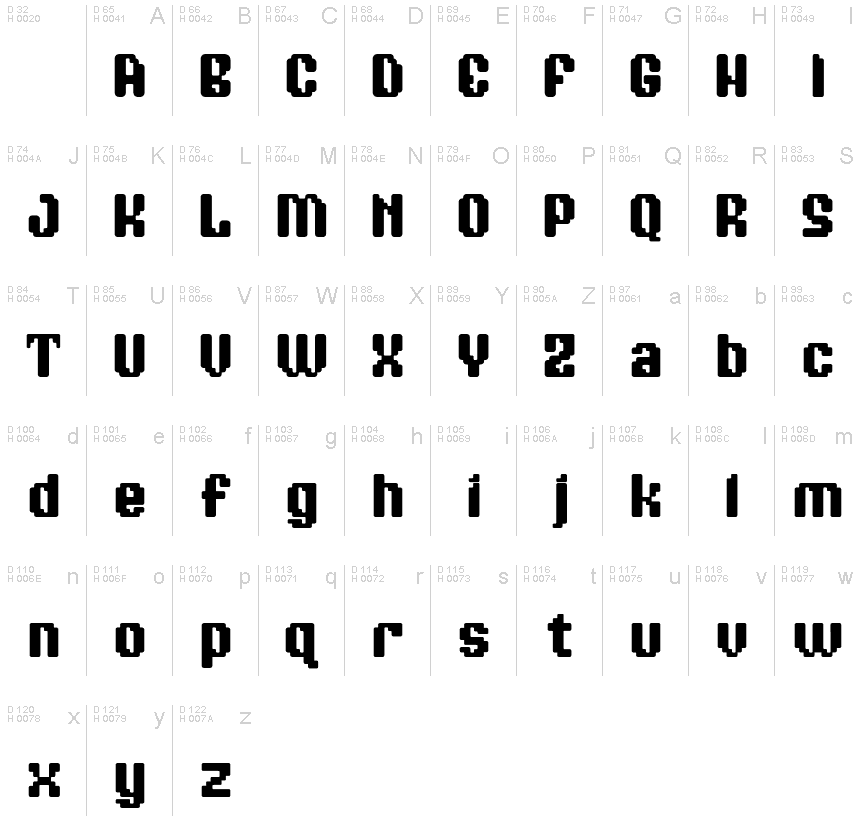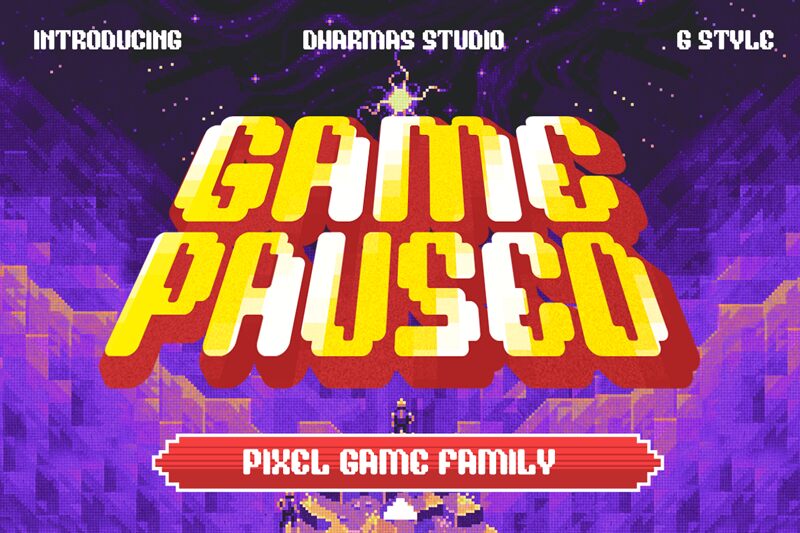
GamePausedDEMO-Regular
Game Paused, designed by Dharmas Studio, is a display font that captures the dynamic essence of digital culture with its extra-bold weight and distinctive style. Its robust and impactful design resonates with the high-energy aesthetic of video gaming and electronic media, making it an ideal choice for projects that demand attention.
The font's digital style echoes modernity and innovation, while its extra-bold character lends itself to strong visual statements. Game Paused offers a versatile palette for designers looking to infuse their creative works with a sense of excitement and contemporary flair.
Whether used in game interfaces, tech event promotions, or eye-catching social media posts, Game Paused stands out for its ability to marry functionality with the spirited world of digital entertainment. Its unique characteristics ensure that any project it graces will not only pause the game but also captivate the audience.